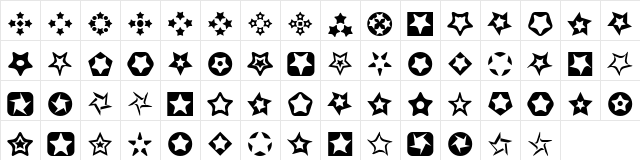
Stars for 3D FX Normal Free Font
Stars for 3D FX Normal
Design Context for Stars for 3D FX
Stars for 3D FX is a composed and adaptable typeface that performs quietly and consistently across a wide range of design contexts.
Pro Tip: Use Stars for 3D FX in both headline and body roles to test its range before committing to a single application.